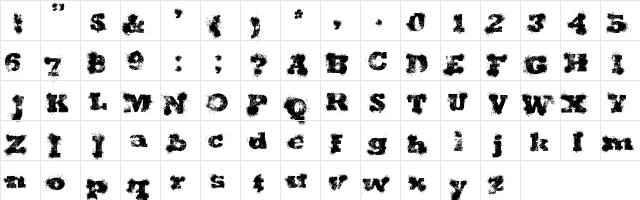
Shotgun Wedding Regular
Design Context for Shotgun Wedding Typeface
Shotgun Wedding is a composed and adaptable typeface that performs quietly and consistently across a wide range of design contexts.